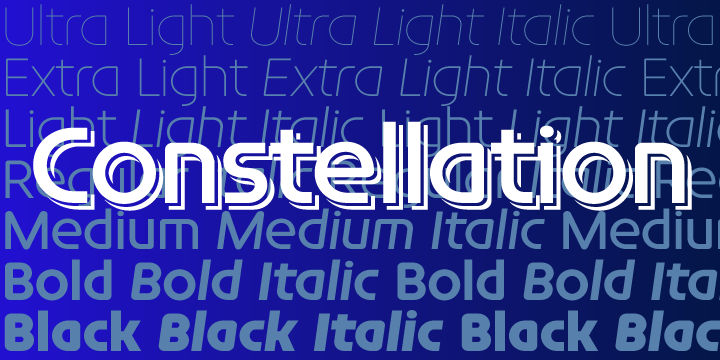
Constellation Pro Font is perfect for tech startups, astronomy websites, science magazines, space-themed branding, futuristic designs, and digital applications. Its modern aesthetic makes it ideal for app interfaces, gaming platforms, science fiction publications, planetarium materials, aerospace companies, and any project requiring innovative, forward-thinking typography that captures the essence of exploration and discovery.
Constellation Pro Font is exciting because it embodies the spirit of cosmic exploration with cutting-edge design principles, creating a typeface that feels both futuristic and accessible. Its unique character details and stellar proportions evoke the wonder of space while maintaining exceptional functionality across digital platforms. The font's innovative approach to letterform design makes it perfect for brands seeking to convey innovation, progress, and boundless possibilities.
Constellation Pro Font family includes versatile weight options typically featuring Light, Regular, Medium, Semibold, Bold, and Black variations with corresponding italic styles. The family often incorporates special characters, scientific symbols, and extended Unicode support for technical applications, providing designers with comprehensive tools for creating sophisticated, technology-focused typographic solutions.
For designers pursuing innovative typography solutions, Constellation Pro Font Free Download represents an exceptional choice for forward-thinking projects. This distinctive typeface brings cosmic inspiration to any design, making it invaluable for tech companies, educational institutions, and creative agencies working on science-based content. Whether you're developing mobile applications, creating educational materials, or designing futuristic branding, Constellation Pro Font delivers the innovation and visual impact necessary for capturing audiences' imagination in today's technology-driven design landscape.